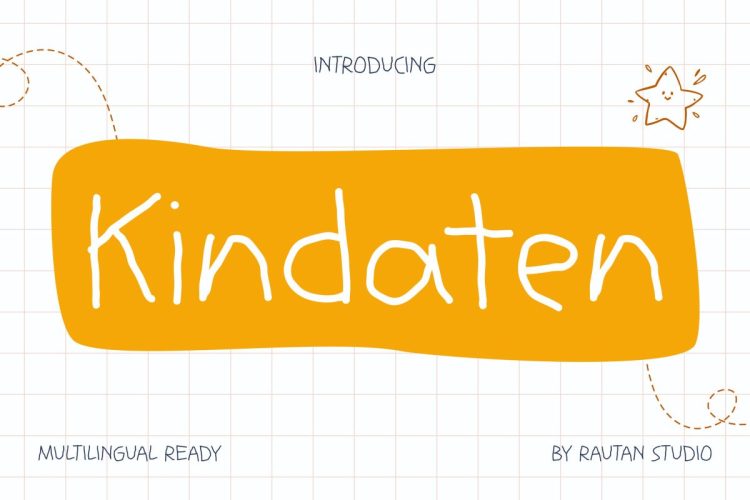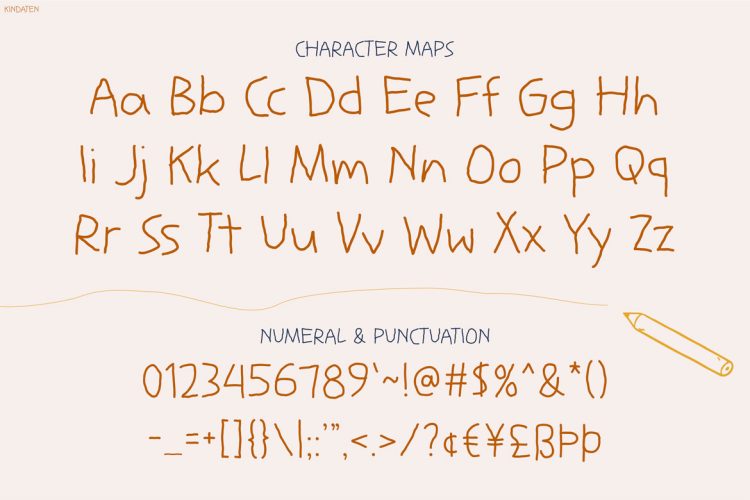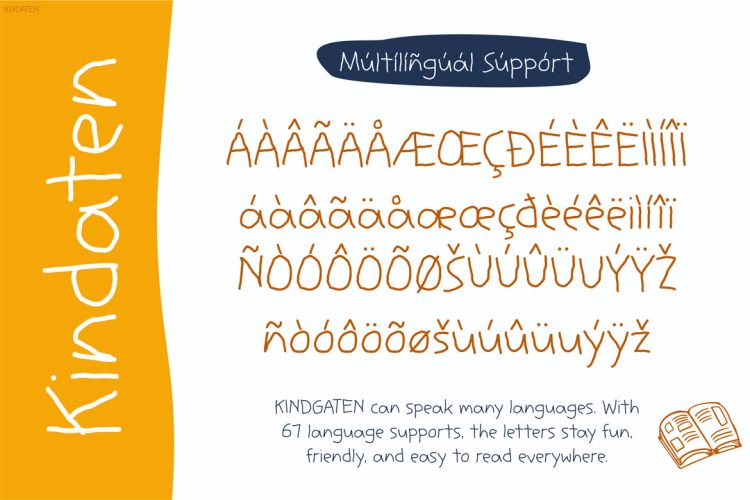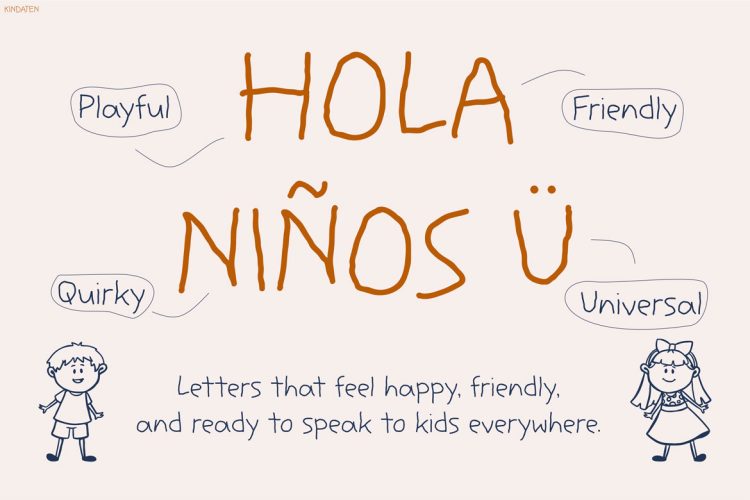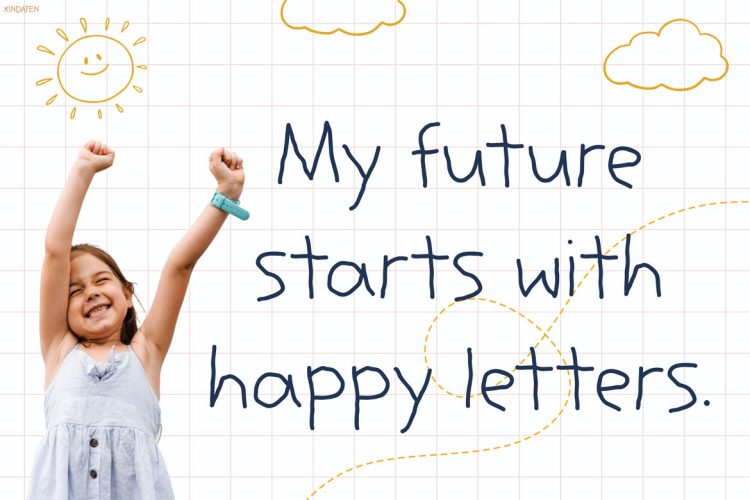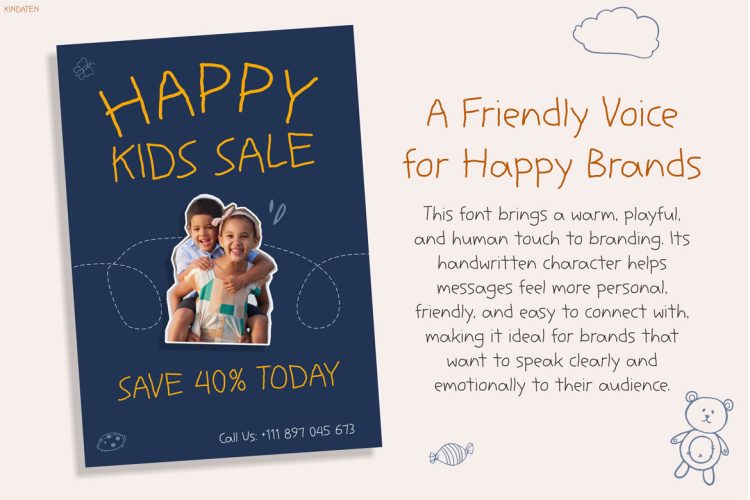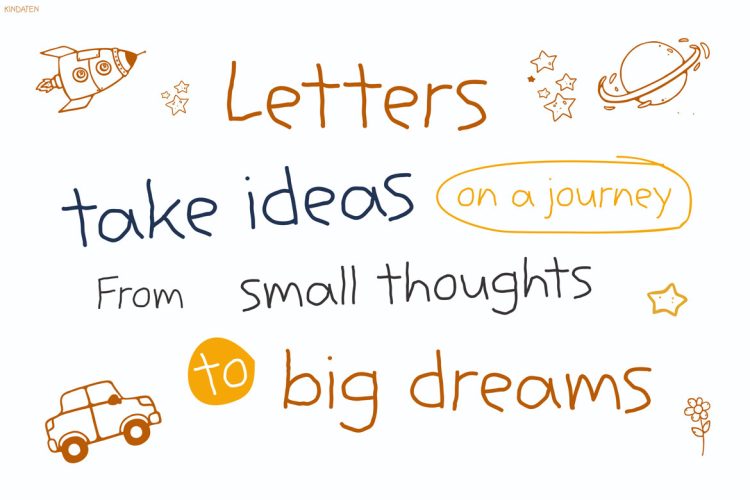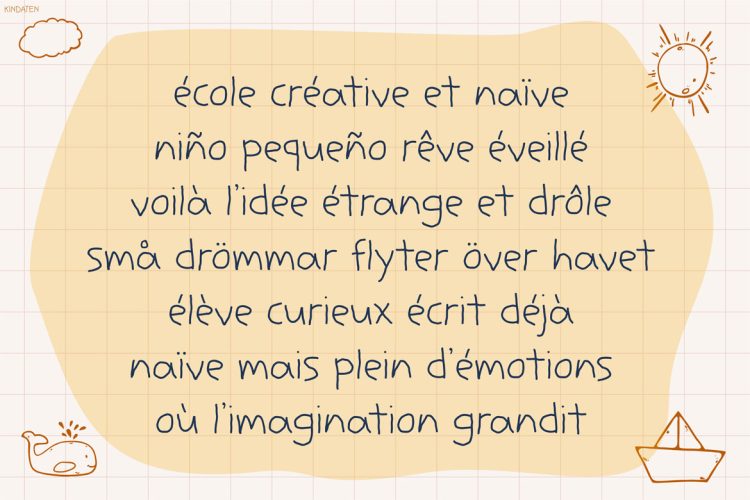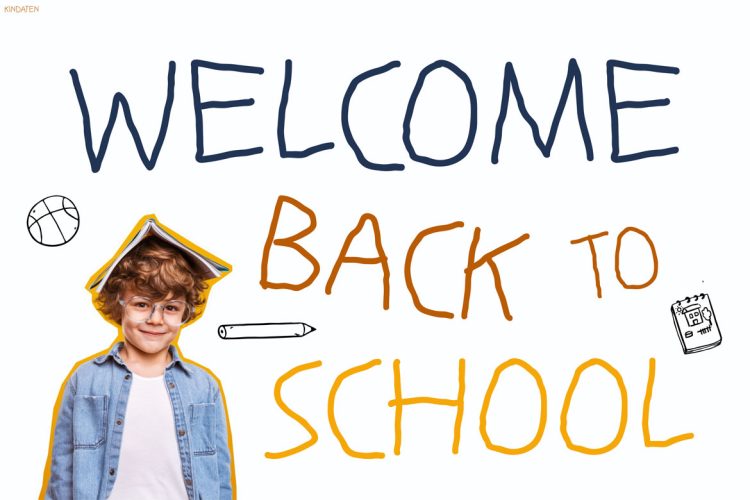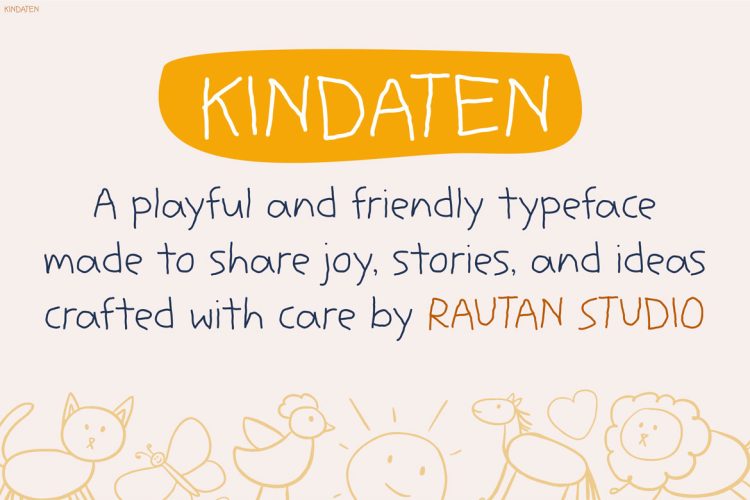
Kids Font KINDATEN โ Gentle Letters for Happy Little Stories
Kids Font Kindaten is a warm, friendly typeface designed to celebrate childhood imagination through simple shapes, soft strokes, and cheerful handwritten energy. From the first glance, this font feels welcoming and honest. Its rounded letterforms and relaxed rhythm create a natural reading flow that feels familiar to kids and comforting to adults. Because of its playful structure and clean spacing, Kids Font Kindaten works beautifully for both short messages and longer text. In addition, its balanced proportions keep every word readable while still looking expressive and full of personality. This font is not loud or aggressive. Instead, it communicates joy, care, and creativity, making it perfect for designs that want to feel human, educational, and emotionally positive. With support for 67 languages, Kindaten allows your message to travel across cultures while keeping its friendly tone intact.
Kids Font Kindaten combines a childlike handwritten style with thoughtful design details that support clarity and usability. Each letter feels as if it was drawn with care, using smooth curves and slightly playful inconsistencies that add charm without hurting readability. Moreover, the font works well across many formats. You can use it for posters, worksheets, storybooks, learning materials, classroom decorations, packaging, and digital content. Because the letterforms stay clean and open, children can recognize words easily. At the same time, designers benefit from a font that feels warm and professional. The multilingual support also makes it suitable for global brands, schools, and creators who need flexibility without sacrificing style.
Suitable For
Kids Font Kindaten is ideal for childrenโs book authors, educators, teachers, tutors, and parents creating learning materials. It also fits kids brands, toy packaging, school events, educational apps, daycare promotions, and happy social media content. Additionally, it works well for greeting cards, kids posters, early learning worksheets, and friendly branding projects that need a soft and joyful voice.